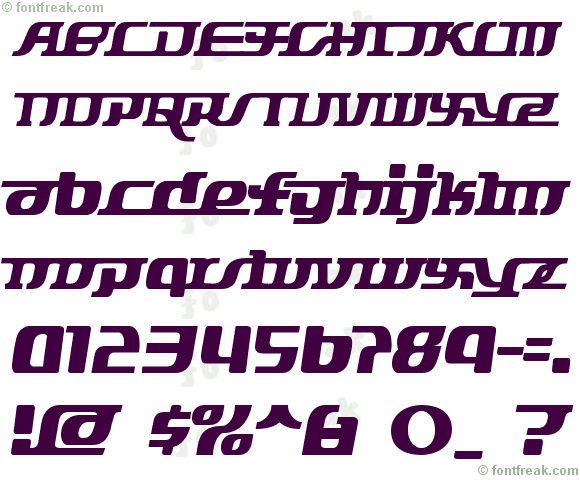
Starbat
About Starbat
The Starbat font by Apostrophic Labs is a striking display typeface that combines modern aesthetics with unique design elements. This font features a bold and robust character with a distinct stroke weight that captures attention effortlessly. The letters display a high contrast between thick and thin lines, creating a dynamic visual appeal. Its generous spacing enhances readability, making it suitable for various applications while maintaining an inviting and contemporary look.
Starbat is ideal for a range of creative projects. Its eye-catching design makes it perfect for wedding invitations that require a touch of elegance and charm. Additionally, the font works wonderfully for movie posters, where its boldness can evoke excitement and intrigue. Restaurant menus benefit from its unique style, giving a fresh twist to traditional typography while enhancing the dining experience. Graphic designers will find it a valuable asset for branding projects, offering a distinctive flair that can set a business apart. Content creators can also leverage the Starbat font in social media graphics, ensuring their posts stand out in crowded feeds.
What sets the Starbat font apart is its ability to combine functionality with a unique visual identity. Its modern design elements make it versatile enough for various applications while still maintaining a sense of individuality. For those looking to elevate their typography, the Starbat font free download offers an exciting opportunity to enhance any design project with a touch of creativity and style.